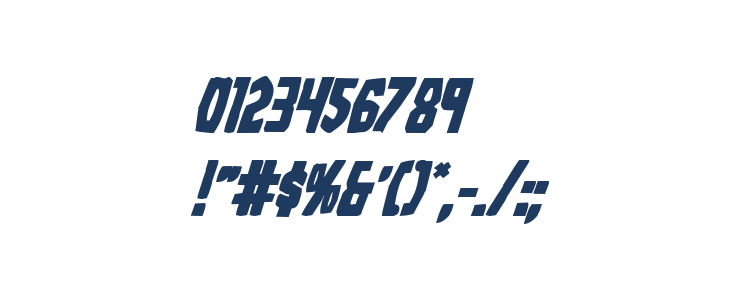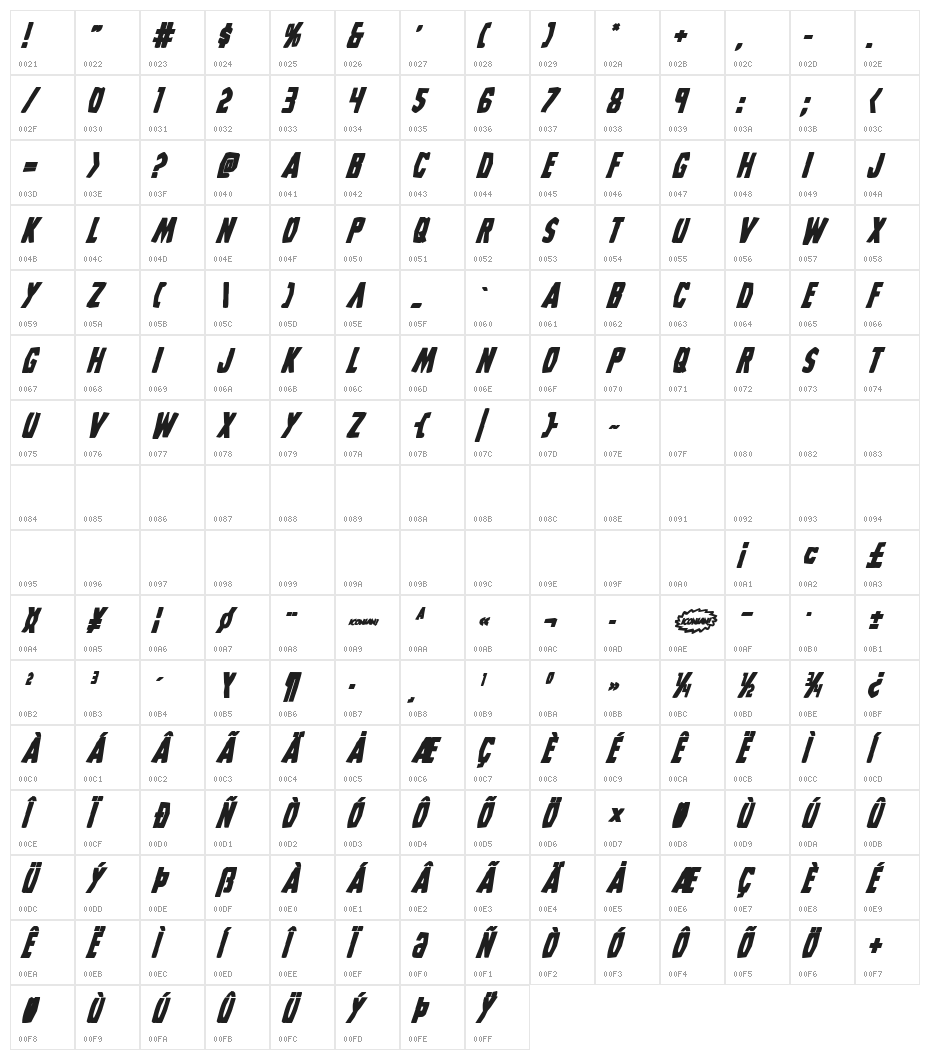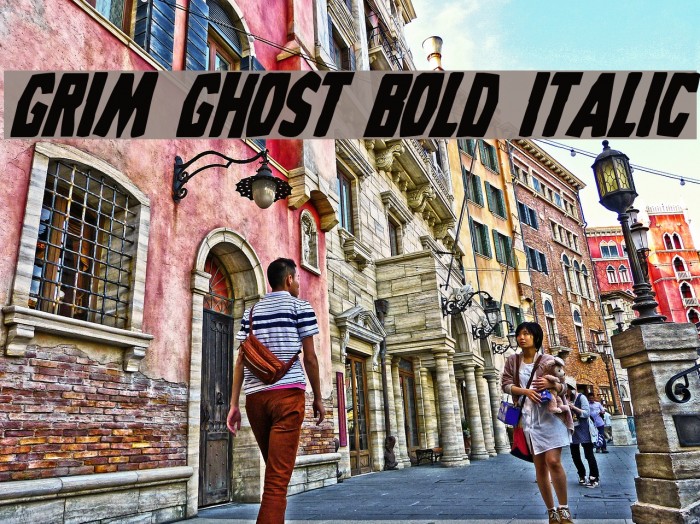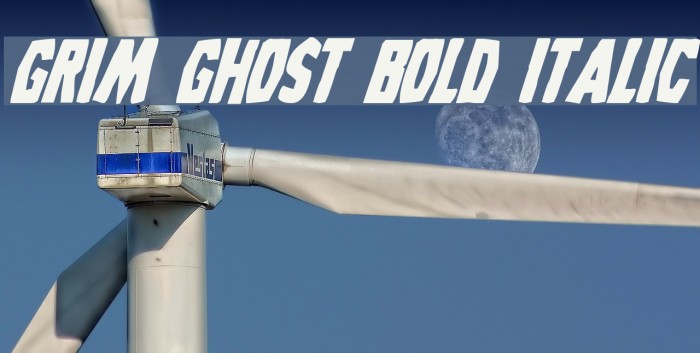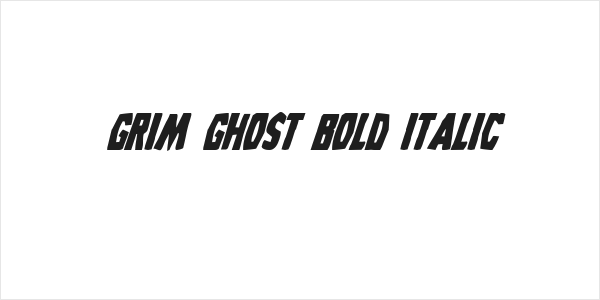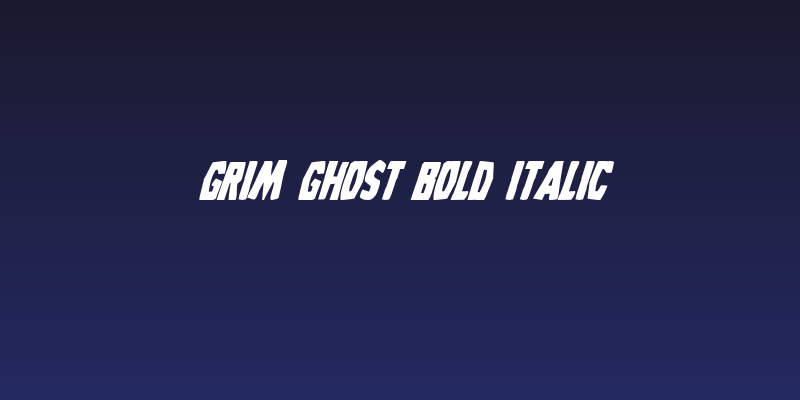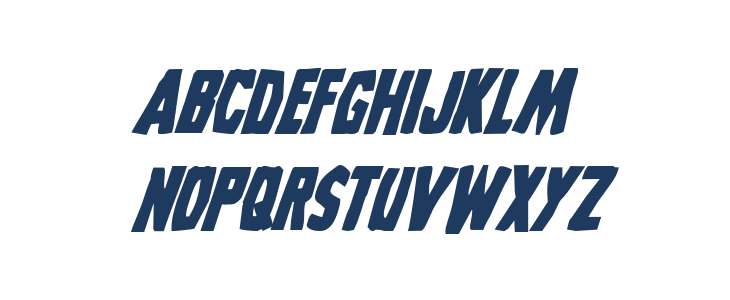
Grim Ghost Bold Italic Font
Grim Ghost Bold Italic Description
This font exhibits a bold and dynamic style with a strong italic slant, giving it a sense of motion and energy. The characters are thick and robust, with sharp angles and a slightly condensed form. The uppercase and lowercase letters maintain a consistent weight, ensuring readability while adding a dramatic flair. The numbers and special characters follow the same bold and italicized design, making them stand out prominently. This font is ideal for projects that require a striking and impactful visual presence.